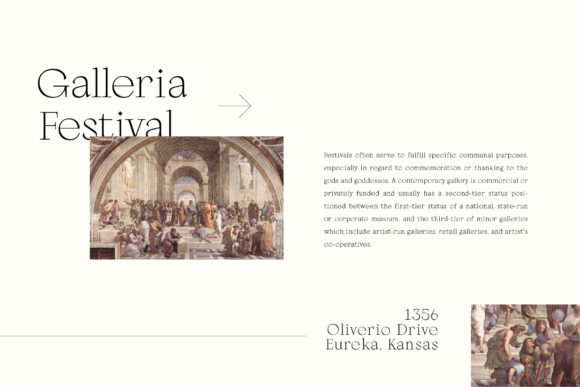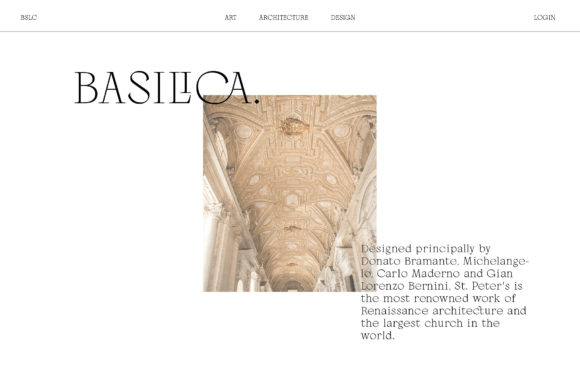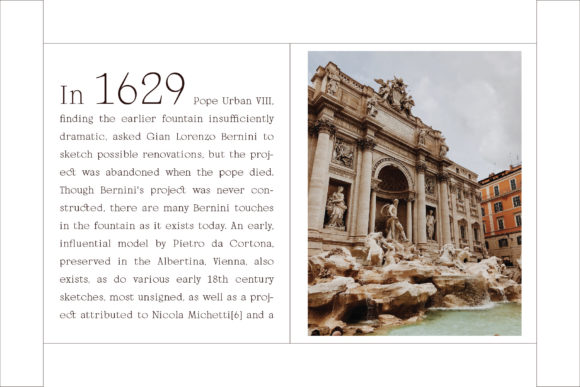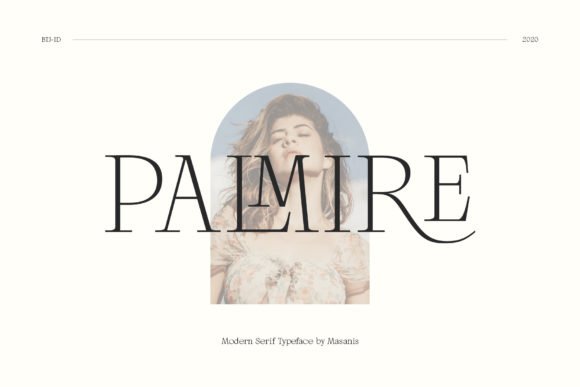
Introduction to Palmire Font
Palmire is a modern serif font carefully created with a touch of elegance.
Whether you’re looking for fonts for Instagram or calligraphy scripts for DIY projects, this font will turn any creative idea into a true piece of art .
Key Features of Palmire Font
Why Choose Palmire Font?
Palmire Font offers exceptional quality and versatility, making it a valuable addition to your design toolkit. Whether you’re creating for personal projects or commercial use, Palmire Font delivers professional results.